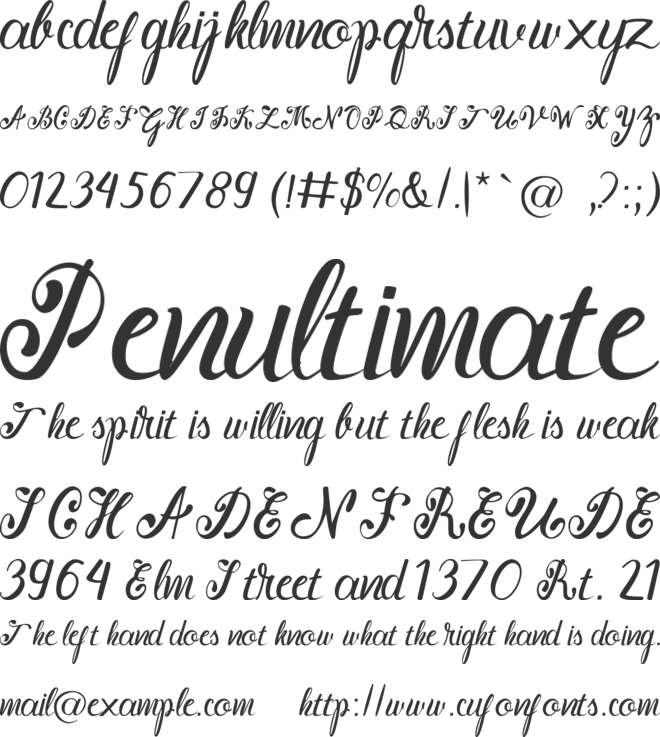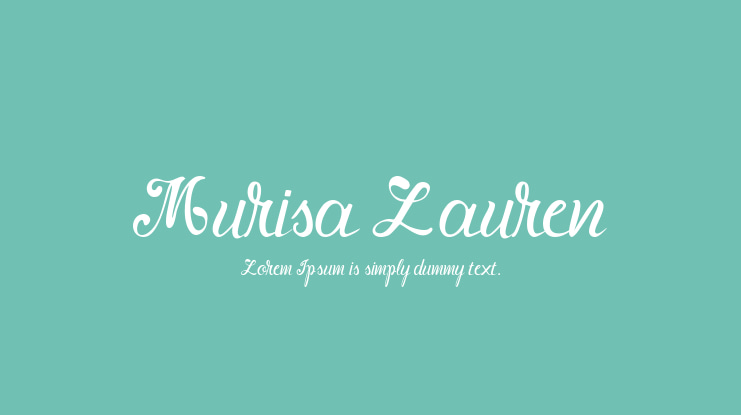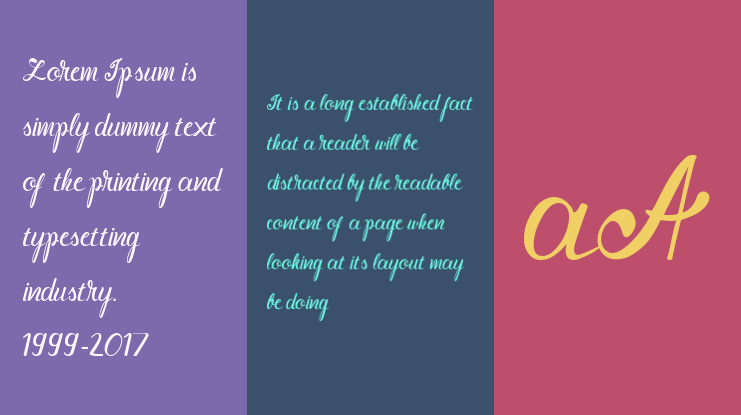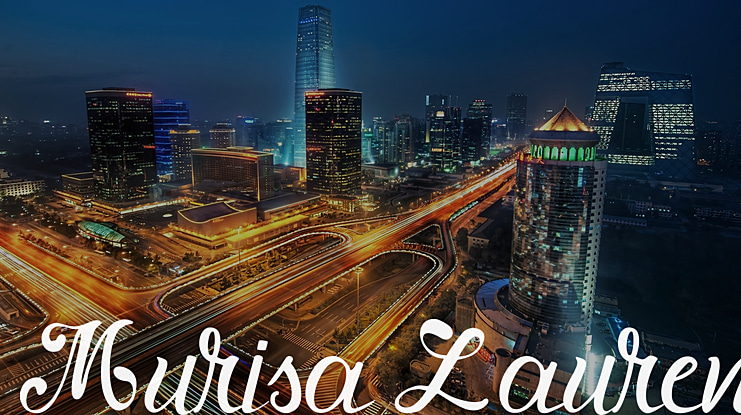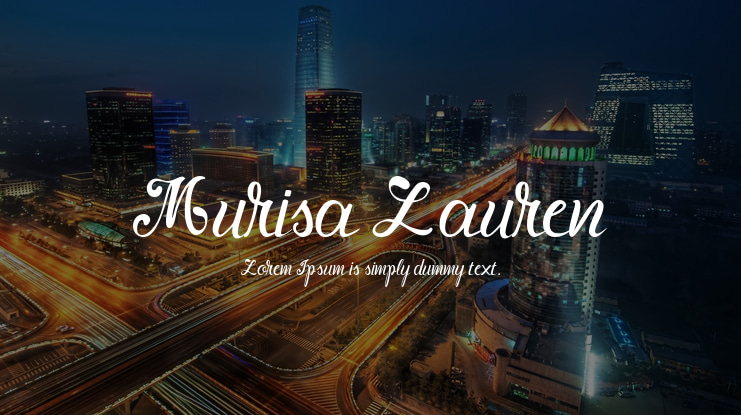
Murisa Lauren Font
Lauren is a beautiful and refined script font. It has a classy, elegant and modern look that can be used for logos, branding, invitations, stationery, wedding designs, social media posts, and much more! This font is PUA encoded which means you can access all of the amazing glyphs and ligatures with ease!